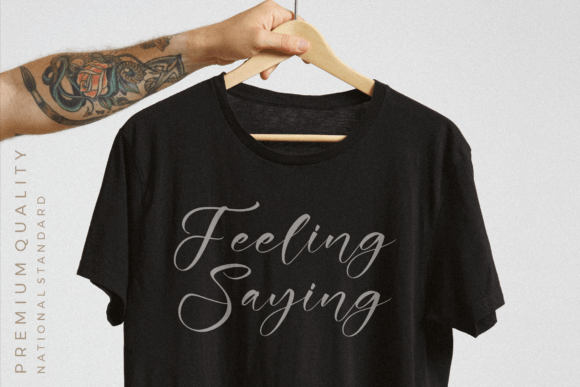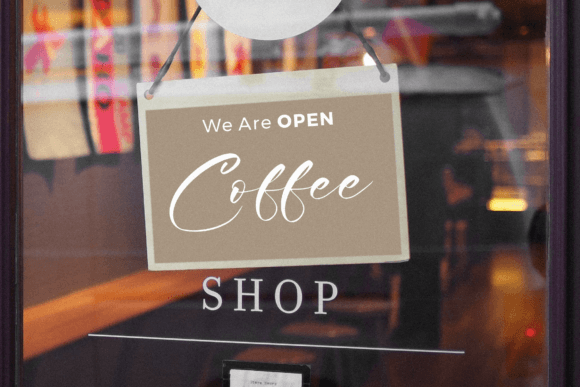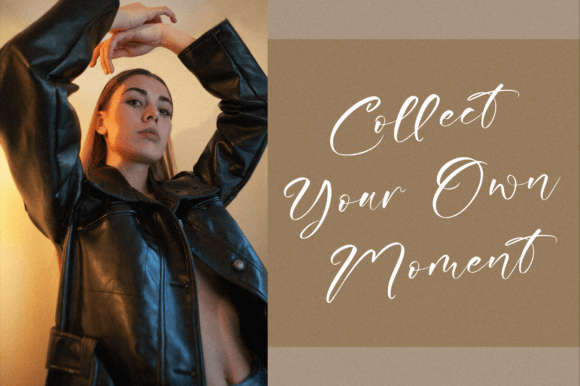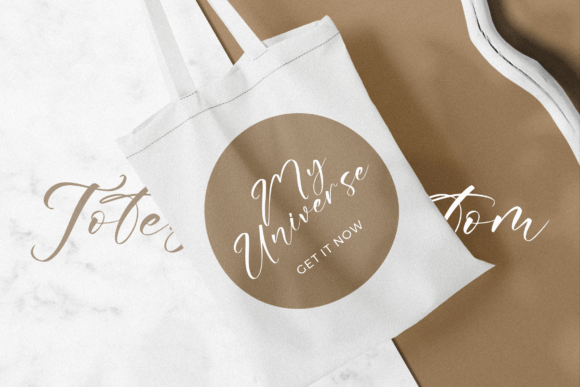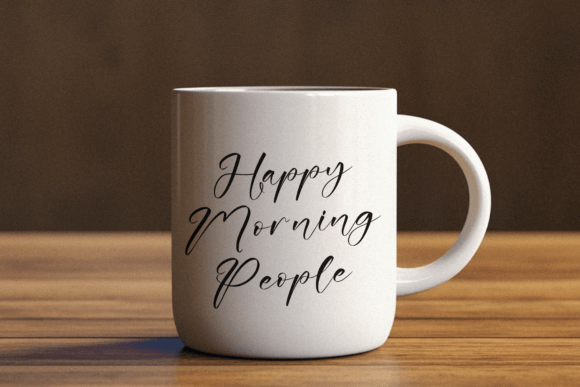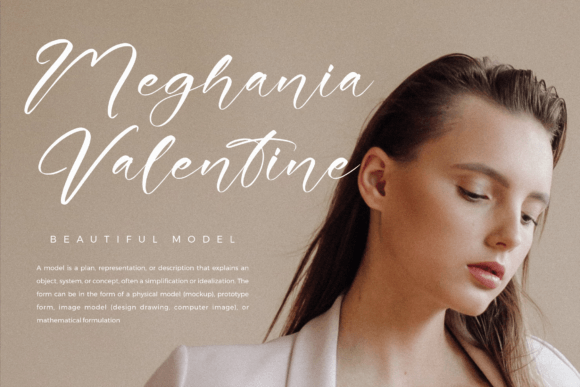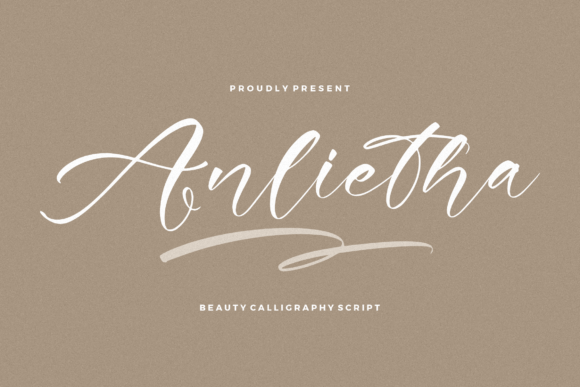
Introducing Anlietha Font: The Epitome of Elegance in Beauty Calligraphy Script
In the realm of typography, few fonts manage to capture the essence of elegance and sophistication as beautifully as Anlietha. Crafted by the talented team at Glorytype Studio, Anlietha is a stunning beauty calligraphy script that has been making waves in the design community. Its versatility and aesthetic appeal make it an ideal choice for a wide array of projects, ranging from logos and branding to homeware designs, product packaging, and much more.
The Birth of Anlietha
Anlietha’s creation is a testament to the skill and creativity of Glorytype Studio, a name synonymous with innovative and high-quality typefaces. The studio’s mission is to provide designers and crafters with the tools they need to bring their visions to life, and Anlietha is no exception. This beauty calligraphy script was designed with the aim of adding a touch of sophistication and elegance to any project.
Characteristics of Anlietha Font
Anlietha boasts a range of characteristics that set it apart from other calligraphy scripts. Its fluid strokes, elegant ligatures, and beautiful swashes come together to create a truly unique and captivating look. The font’s design is meticulously crafted to ensure that it remains legible and impactful, whether used in digital formats or in print.
Uses of Anlietha Font
One of the standout features of Anlietha is its versatility. This font is suitable for a myriad of projects, including:
- Logos and Branding Projects: Anlietha can add a touch of class and sophistication to your brand’s identity.
- Homeware Designs: From mugs to wall art, Anlietha brings a level of elegance to home decor.
- Product Packaging: Stand out on store shelves with packaging that exudes luxury and style.
- Mugs, Quotes, Posters, and Shopping Bags: Add a personal touch to everyday items.
- T-shirts and Apparel: Elevate fashion designs with a sophisticated script.
- Book Covers and Name Cards: Make a lasting impression with beautifully designed book covers and name cards.
- Invitation Cards, Greeting Cards, and Labels: Add a touch of elegance to special occasions and product labels.
- Photography and Watermark: Protect your images with a stylish watermark.
- Special Events: Make your event memorable with bespoke typography.
Why Choose Anlietha?
Choosing Anlietha for your design projects comes with numerous benefits:
- Unique Aesthetic: Anlietha offers a distinctive look that can set your projects apart.
- High Versatility: Suitable for a wide range of applications, from digital to print.
- Elegance and Sophistication: Adds a touch of luxury to any design.
- Easy to Use: Designed to be user-friendly, making it accessible for designers of all skill levels.
Anlietha by Glorytype Studio is more than just a font – it’s a design statement. With its beautiful calligraphy script, it offers a world of possibilities for designers and crafters looking to add a touch of elegance and sophistication to their projects. Whether you’re working on a branding project, homeware design, or any other creative endeavor, Anlietha is sure to exceed your expectations. Explore the possibilities with Anlietha and elevate your designs to new heights of beauty and elegance.
Discover the beauty of Anlietha and let your designs speak with the elegance and sophistication they deserve.